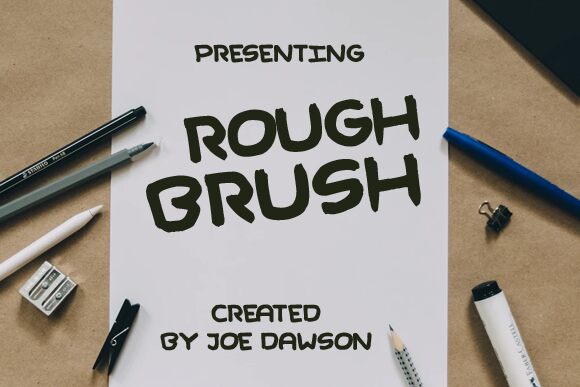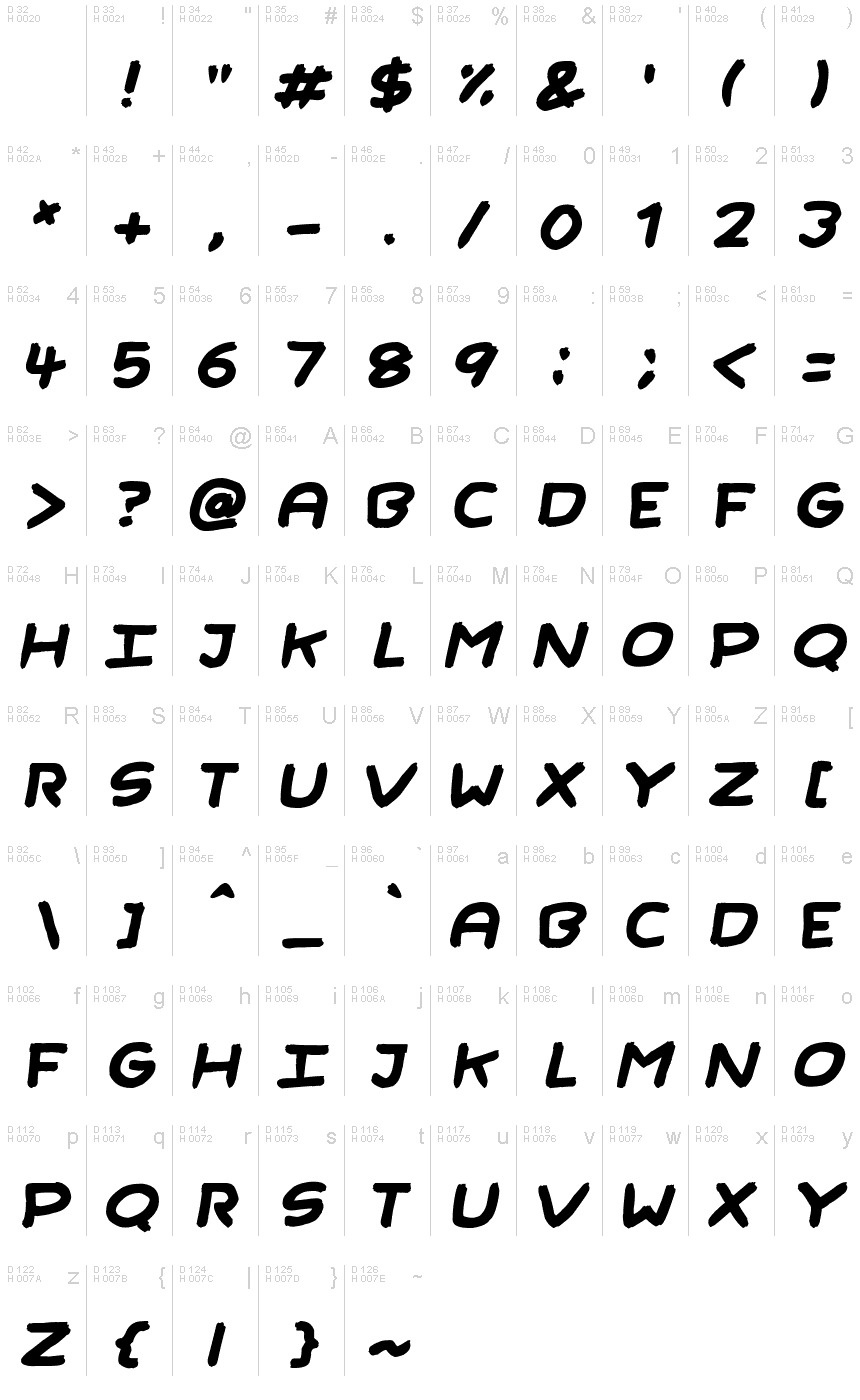
Rough Brush Italic font is a brush typeface designed by Joseph Dawson.
Rough Brush is a casual handwritten font. Fall in love with its incredibly distinct and timeless style and use it to create spectacular designs!